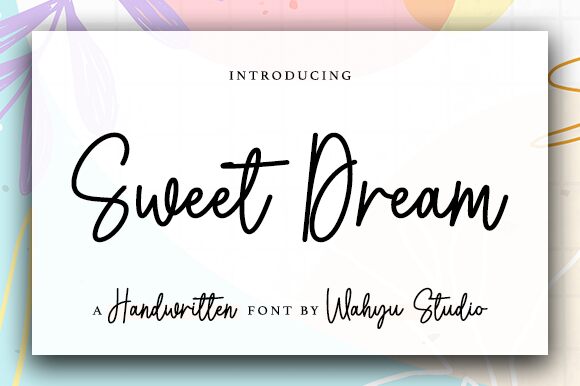
Sweet Dream
Discover Sweet Dream, a delightful handwritten font by Wahyu Studio. With its light weight and charming style, this font is perfect for adding a touch of whimsy to various projects. From greeting cards and invitations to children's books and product packaging, Sweet Dream will infuse your designs with a sense of playfulness and joy. Let your creativity run wild as you bring this enchanting font to life in your next project.